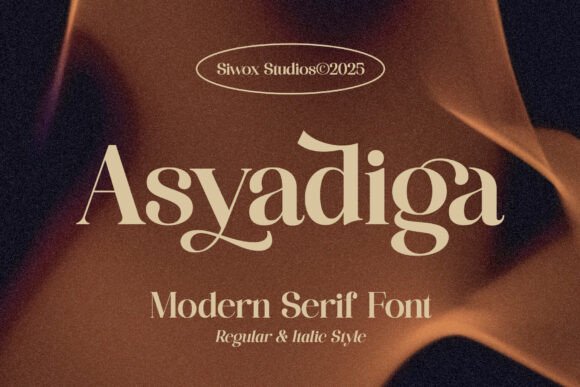
Asyadiga Font: The Ultimate Choice for Modern and Elegant Designs
In the world of graphic design, typography plays a crucial role in conveying the message and aesthetic of a brand or project. With numerous font options available, finding the perfect one that embodies the desired style and tone can be a daunting task. However, if you’re looking for a clean, modern, minimalist, elegant, and beautiful design style, Asyadiga Font is an excellent choice. In this article, we’ll delve into the features and benefits of Asyadiga Font, and explore its suitability for various graphic design applications.
What is Asyadiga Font?
Asyadiga Font is a serif typeface that boasts ligatures and alternates, making it a versatile and stylish option for designers. This font comes in two styles: regular and italic, providing flexibility and variety for different design projects. The name “Asyadiga” is derived from the words “asy” meaning “clean” and “diga” meaning “beauty,” which accurately reflects the font’s sleek and elegant appearance.
Key Features of Asyadiga Font
- Serif Typeface: Asyadiga Font features traditional serif elements, which add a touch of sophistication and classic elegance to any design.
- Ligatures and Alternates: The font includes ligatures and alternates, allowing designers to create unique and visually appealing text arrangements.
- Two Styles: Asyadiga Font comes in two styles: regular and italic, making it suitable for a wide range of design applications.
- Clean and Modern: The font’s clean lines, precise curves, and balanced proportions create a modern and fresh look.
Benefits of Using Asyadiga Font
Asyadiga Font offers several benefits that make it an attractive choice for designers. Some of the advantages of using Asyadiga Font include:
- Elegance and Sophistication: Asyadiga Font’s serif elements and elegant lines add a touch of sophistication to any design, making it perfect for luxury brands, high-end products, and premium services.
- Versatility: The font’s clean and modern design makes it suitable for a wide range of applications, from logos and branding materials to posters, prints, and digital media.
- Readability: Asyadiga Font’s clear and balanced design ensures excellent readability, even at small font sizes, making it ideal for body text and captions.
- Customization: The font’s ligatures and alternates provide designers with the flexibility to create unique and customized text arrangements.
Design Applications for Asyadiga Font
Asyadiga Font’s versatility and elegance make it suitable for a wide range of graphic design applications. Some of the design projects where Asyadiga Font can be used include:
- Logos and Branding Materials: Asyadiga Font’s elegant and sophisticated design makes it perfect for logos, business cards, and other branding materials.
- Print Materials: The font’s clean and modern design makes it suitable for posters, prints, flyers, and other print materials.
- Digital Media: Asyadiga Font can be used for digital media, such as website headers, social media graphics, and email newsletters.
- Merchandise: The font’s bold and elegant design makes it perfect for merchandise, such as t-shirts, mugs, and tote bags.
Tips for Using Asyadiga Font
To get the most out of Asyadiga Font, here are some tips to keep in mind:
- Pair with Other Fonts: Asyadiga Font can be paired with other fonts to create a unique and visually appealing design.
- Experiment with Ligatures: The font’s ligatures and alternates can add a touch of elegance and sophistication to your design.
- Adjust Font Size: Asyadiga Font can be used at various font sizes, from large headings to small body text.
- Use in Combination with Images: The font’s clean and modern design makes it perfect for use in combination with images and graphics.
In conclusion, Asyadiga Font is an excellent choice for designers looking for a clean, modern, minimalist, elegant, and beautiful design style. With its serif elements, ligatures, and alternates, this font offers a versatile and stylish option for a wide range of graphic design applications. Whether you’re designing logos, branding materials, posters, or digital media, Asyadiga Font is sure to impress. So why not give Asyadiga Font a try and experience the benefits of this amazing font for yourself?